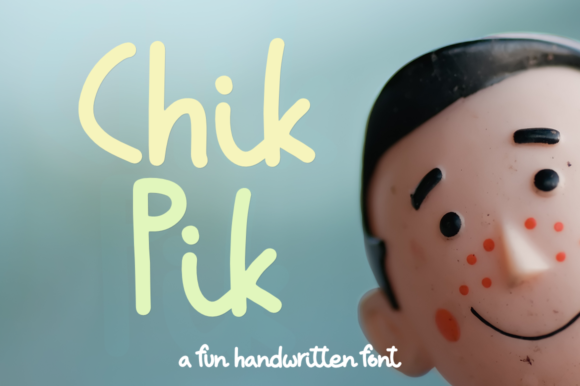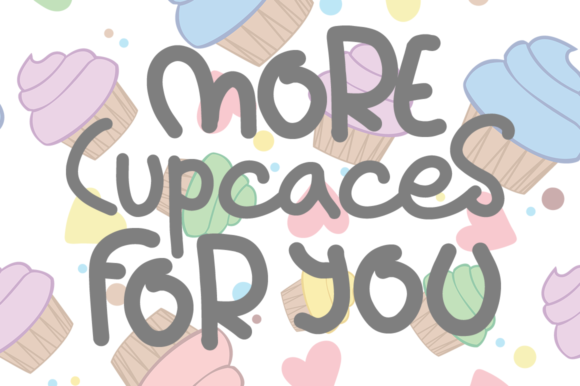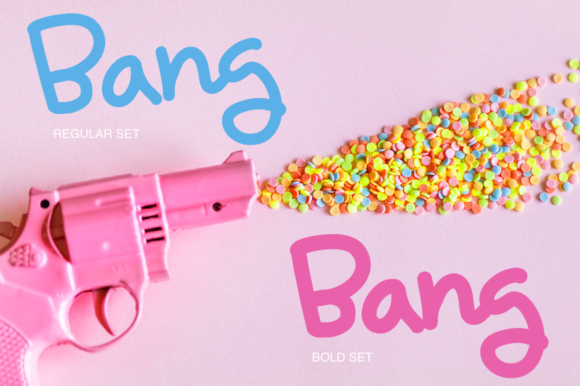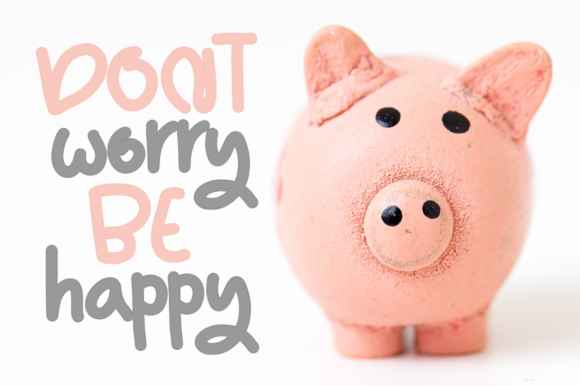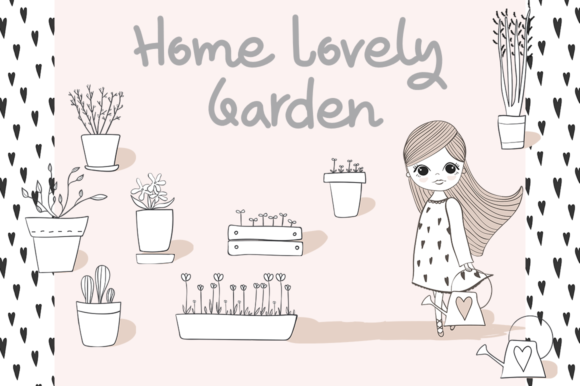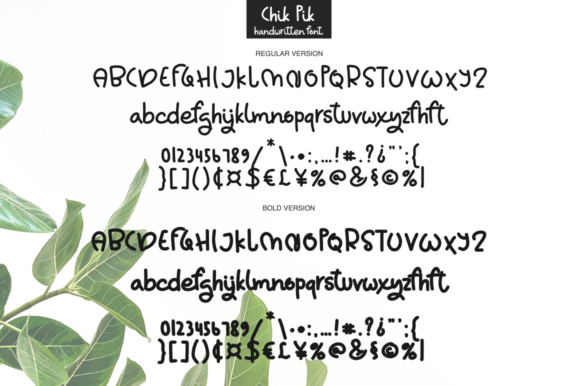
Chik Pik Font
About Chik Pik Font
Chik Pik script is a new, fresh, handmade calligraphy font. Chik Pik is ideal for branding and decorate your projects. You can use it for wedding invitations or your blog, or just for your small business, book covers, stationery, marketing, magazines and more. Chik Pik comes with regular and bold versions.